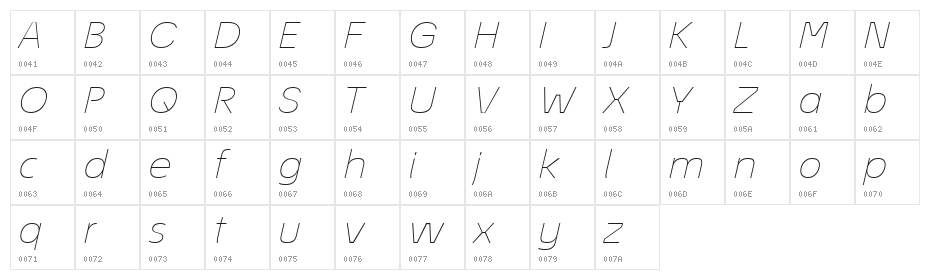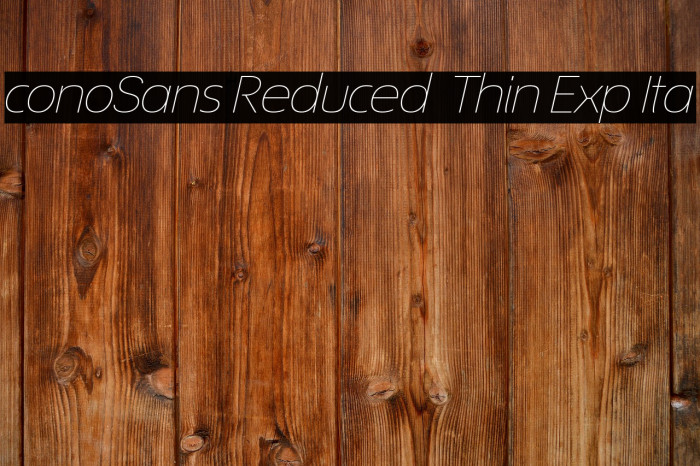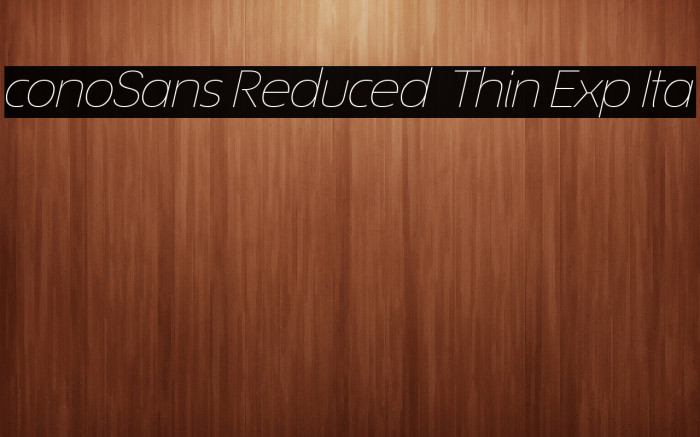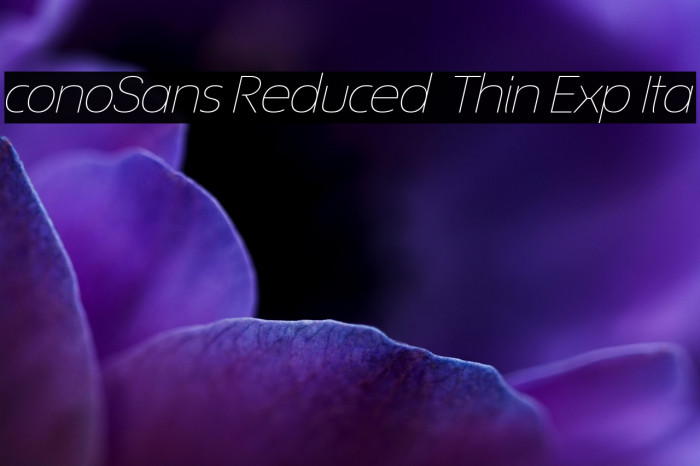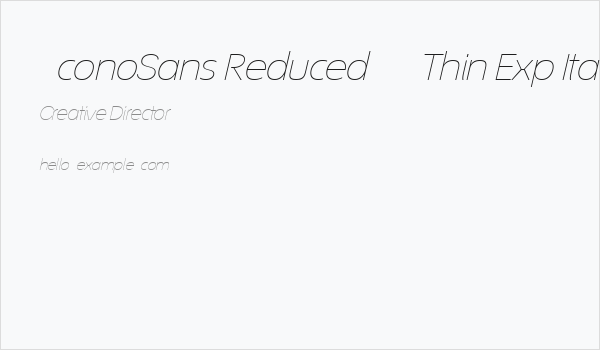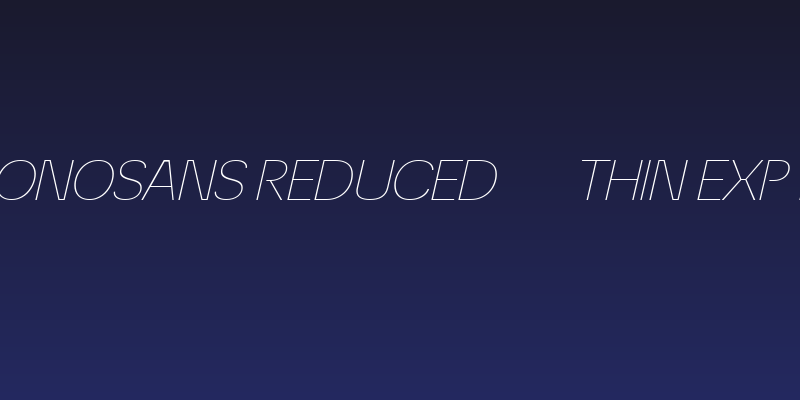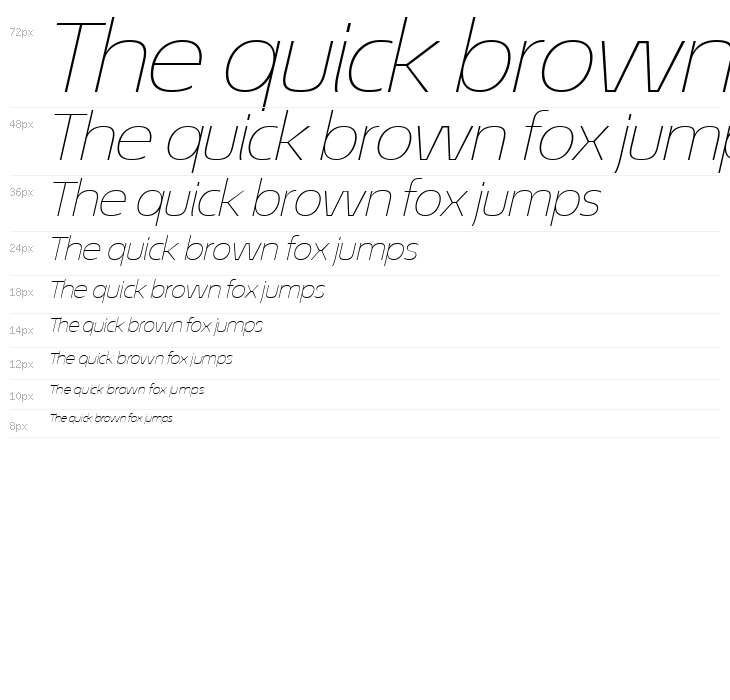
ÉconoSans Reduced 34 Thin Exp Ita Font
ÉconoSans Reduced 34 Thin Exp Ita Description
This font features a sleek, modern design with a thin, elegant stroke. The characters are slightly italicized, giving them a dynamic and forward-leaning appearance. The font maintains a consistent line weight throughout, contributing to its minimalist aesthetic. The extended width of the characters provides a sense of openness and readability, making it suitable for various design applications. The uppercase and lowercase letters are well-proportioned, and the overall style is clean and sophisticated, ideal for contemporary projects.
| Use Case | Headlines, Logos, Editorial design |
| Proposed Projects | Ideal for modern branding, minimalist posters, sleek website headers, and contemporary editorial design. |